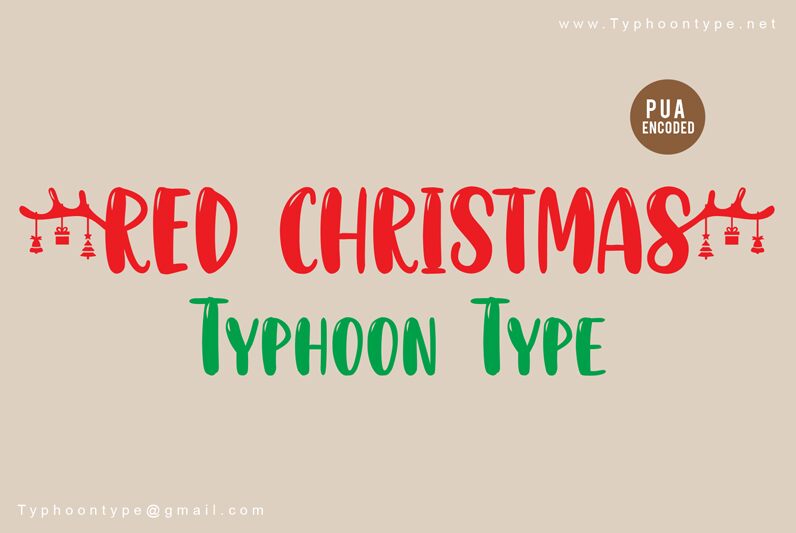
Red Christmas font is a must-have Christmas typeface designed by Suthi Srisopha of Typhoon Type.
Type ( before word to get beginning Reindeer Antlers and Type ) after word to get the ending Reindeer Antlers.
Example : (Red Christmas)